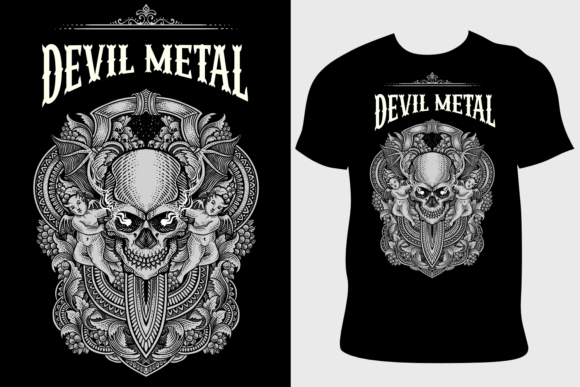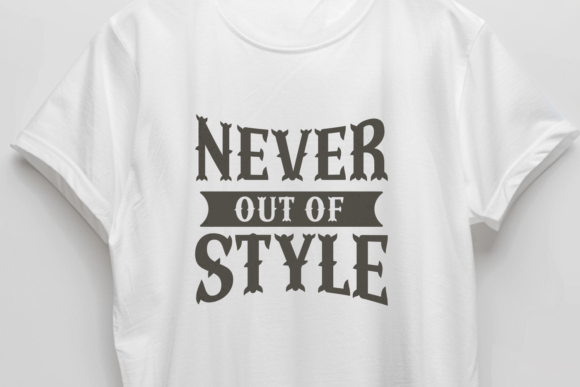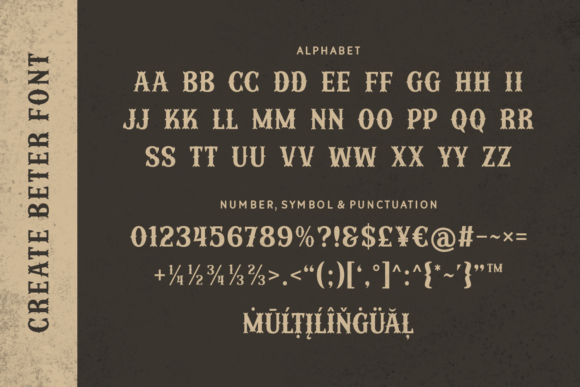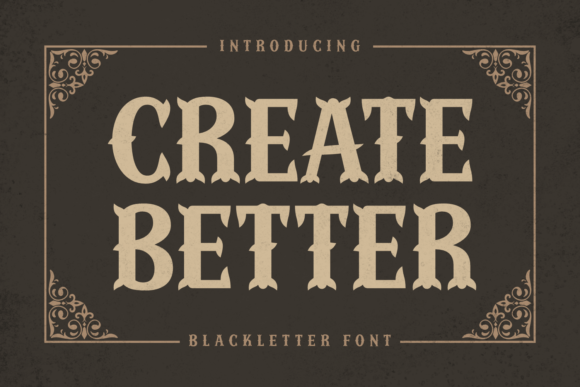
Create Better Font: A Bold Blackletter Typeface Inspired by the Old West
In the world of typography, fonts play a crucial role in conveying the tone and personality of a design. For designers and crafters looking to add a touch of drama and adventure to their projects, the Create Better font is an excellent choice. This bold blackletter font combines the traditional Gothic style with distinctive elements of Western typography, creating a unique and rugged typeface that’s perfect for evoking strength, tradition, and the spirit of the Old West.
The Inspiration Behind Create Better
The Create Better font draws inspiration from the classic Gothic typefaces of the past, while incorporating elements of Western typography to give it a distinctive edge. The result is a font that’s both nostalgic and modern, with a bold and adventurous personality that’s sure to grab attention. Whether you’re working on a branding project, designing a product package, or creating a large headline, the Create Better font is the perfect choice for adding a sense of grandeur and legacy to your design.
Key Features of the Create Better Font
So, what sets the Create Better font apart from other typefaces? Here are some of its key features:
• Bold and Dramatic: The Create Better font is a bold and dramatic typeface that’s perfect for making a statement. Its thick lines and rugged edges give it a strong and adventurous personality that’s sure to grab attention.
• Unique Fusion of Styles: The font combines the traditional Gothic style with distinctive elements of Western typography, creating a unique and eye-catching typeface that’s unlike anything else.
• Perfect for Large Headlines: The Create Better font is ideal for large headlines, where its bold and dramatic personality can really shine.
• Suitable for Branding and Packaging: The font is also perfect for branding and product packaging, where its sense of grandeur and legacy can help to evoke a sense of tradition and heritage.
Using the Create Better Font in Your Designs
So, how can you use the Create Better font in your designs? Here are a few ideas to get you started:
• Logos and Branding: Use the Create Better font to create a bold and memorable logo that’s sure to stand out.
• Headlines and Titles: The font is perfect for large headlines and titles, where its dramatic personality can really shine.
• Product Packaging: Add a touch of grandeur and legacy to your product packaging with the Create Better font.
• Advertising and Marketing: The font is also perfect for advertising and marketing materials, where its bold and adventurous personality can help to grab attention and drive results.
Tips for Getting the Most Out of the Create Better Font
Here are a few tips for getting the most out of the Create Better font:
• Use it Sparingly: Because of its bold and dramatic personality, it’s best to use the Create Better font sparingly to avoid overwhelming the reader.
• Experiment with Colors: The font looks great in a variety of colors, so don’t be afraid to experiment and find the perfect shade to match your brand.
• Pair it with Other Fonts: The Create Better font pairs well with other fonts, so try combining it with a simpler typeface to create visual interest.
In conclusion, the Create Better font is a bold and adventurous typeface that’s perfect for designers and crafters looking to add a touch of drama and tradition to their projects. With its unique fusion of Gothic and Western typography styles, this font is sure to grab attention and evoke a sense of strength and legacy. Whether you’re working on a branding project, designing a product package, or creating a large headline, the Create Better font is an excellent choice.